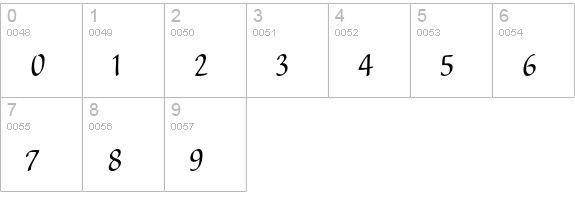
Balzano Font Details
Balzano font is a beautifully designed typeface that exudes elegance and sophistication. Its sleek lines and stylish curves make it perfect for a variety of design projects, from branding to print materials. The font features a modern yet timeless look that will surely catch the eye of your audience. What sets Balzano font apart is not only its stunning visual appeal but also the fact that it is available for free! Yes, you read that right - this high-quality font can be downloaded at no cost from FontsMarket.com. So whether you're a designer looking to add a touch of class to your creations or a business owner in need of a stylish font for your marketing materials, Balzano font is the perfect choice. Don't miss out on this fantastic opportunity to enhance your projects with this beautiful and free font.